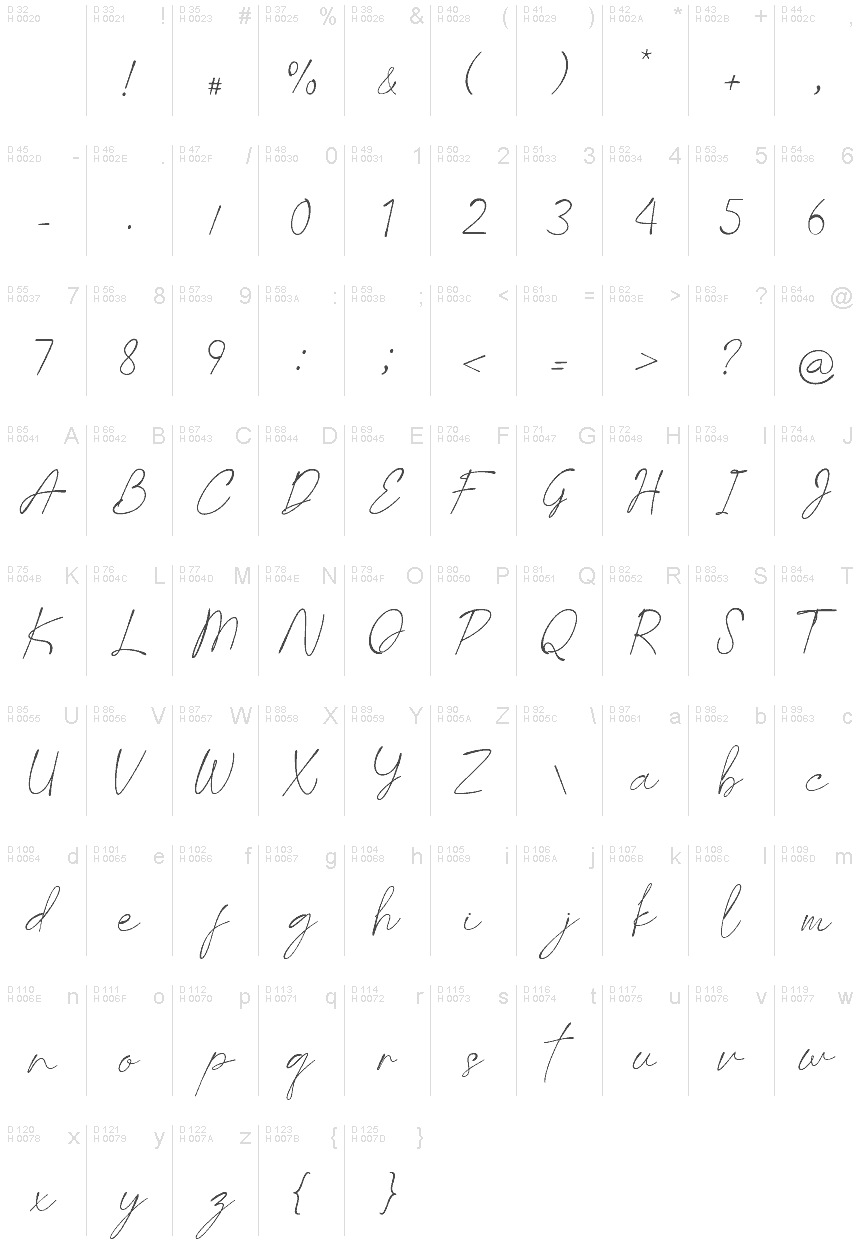
Last Signature
Last Signature is an elegant signature handwritten font that was created by UI Creative with the intent to create a natural and authentic user experience with its unique script characters, allowing for infinite creative and typographic possibilities.
Each letter was designed with an emphasis on legibility. This means that the letters themselves are not overcomplicated, and many are closely spaced and connected for a more seamless read.
Last signature would make an ideal font for logotypes, signatures, banners, posters, business cards, invitation cards, social media posts, etc. You can also add it to your web pages to use it as a header and body font.